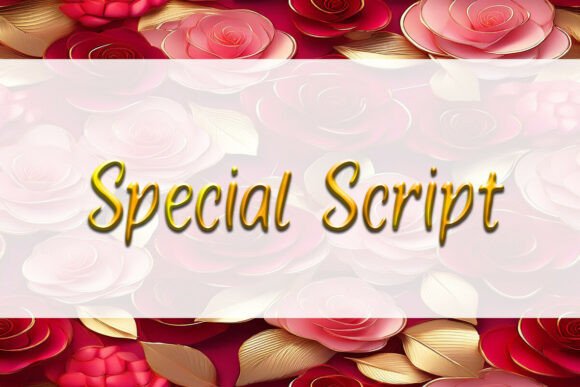
Why Special Script is the Creative Font Your Toolkit Needs
In the crowded world of modern typography, finding a typeface that balances personality with professionalism can be a challenge. Many display fonts lean too far into the chaotic "handwritten" style, sacrificing legibility for the sake of raw expression. Others feel sterile, removing the human element entirely. Special Script occupies that rare, valuable middle ground. It is an exceptional choice for designers and creators who need to inject elegance and authenticity into their work without losing the clarity required for commercial success.
At its core, Special Script is defined by its fluid curves and elegant strokes. It doesn’t just mimic handwriting; it elevates it. The letterforms flow into one another with a rhythm that feels organic yet controlled. This visual personality makes it an immediate standout. Unlike rigid block letters or overly technical sans-serif fonts, this typeface brings a warmth to the page that invites the viewer in. It feels personal, intimate, and distinctively human. Whether you are working on a high-end brand identity or a personal passion project, the visual appeal of this font lies in its ability to communicate emotion instantly.
Practical Applications: Beyond the Wedding Invite
When we think of script fonts, the mind often jumps to wedding invitations or overly decorative stationery. While Special Script certainly excels in those areas, its utility extends far beyond traditional stationery. It is a powerhouse for a variety of creative mediums, particularly in the realm of physical products and digital marketing.
For those involved in apparel design, Special Script is a game-changer. It is the most fitting choice for custom t-shirts because it maintains its structural integrity even when printed on fabric. The strokes are balanced perfectly—thick enough to screen print cleanly, but detailed enough to look high-end. If you are selling on platforms like Etsy or running a boutique clothing line, this font helps you avoid the generic look of standard "distressed" lettering.
Similarly, for the booming market of decals and stickers, this font shines. The fluid curves create beautiful silhouettes that are easy to weed and cut. It translates seamlessly into SVG files, which is critical for users operating Cricut or Silhouette machines. If you have ever struggled with a script font that has too many sharp, disconnected points that snag the vinyl, you will appreciate the smooth, continuous nature of Special Script.
It is also a standout for editorial design and print media. Imagine a magazine layout where the headlines need to pop with personality. Using Special Script for pull quotes or section headers can break up the monotony of body text, adding a layer of visual hierarchy that guides the reader’s eye. It works beautifully for packaging design as well, especially for artisanal goods where the brand story relies on a "handmade" aesthetic.
Strategic Typography: How Fonts Influence Perception
Choosing a font is never just about aesthetics; it is a strategic decision that influences how your audience perceives your brand. Typography plays a massive role in brand recognition and trust. When you use a premium font like Special Script, you are signaling quality. It suggests that you care about the details, which translates to a perception of professionalism.
For brand identity, consistency is key. Special Script provides a distinct voice that can become the "face" of your brand. It is particularly effective for businesses that want to appear approachable yet sophisticated—think boutique bakeries, lifestyle coaches, high-end salons, or creative agencies. The font acts as a visual handshake, establishing a mood before the customer has even read the first word of your copy.
However, as with any display font, readability is the primary concern. Special Script is designed to be legible at larger sizes, making it ideal for headlines, logos, and social media graphics. It commands attention on Instagram posts or Pinterest pins, where you have only a split second to catch a scrolling thumb. That said, it is not intended for long-form body text. A common mistake in web design and print is using a script font for paragraphs. This creates eye strain and destroys readability. Instead, pair it with a clean sans serif font or a sturdy serif font for your body copy. The contrast between the fluid script and the structured body text creates a sophisticated font pairing that balances flair with function.
Integrating Special Script into Your Workflow
For designers and entrepreneurs, efficiency is just as important as aesthetics. Integrating a new typeface into your workflow shouldn't slow you down. Special Script is designed as a versatile design asset that adapts to various software environments, from Adobe Illustrator to Procreate.
When evaluating if this font is the right fit for your current project, consider the tone of your message. If you are aiming for "corporate serious," a modern typography approach using a sans-serif might be better. But if you are aiming for "authentic," "creative," or "elegant," Special Script is likely the missing piece. It is a creative font that helps bridge the gap between digital perfection and human imperfection.
Here are a few practical tips for getting the most out of this typeface:
- Test the Pairings: Before finalizing a design, test Special Script against different background colors and secondary fonts. It often pairs best with geometric sans-serifs (like Montserrat or Futura) or classic serifs (like Garamond), depending on the era you want to evoke.
- Check the Licensing: Ensure you have the correct commercial font license. If you are using the font for a client logo, a t-shirt line, or digital downloads, verify that the license covers commercial use. This protects both you and your client.
- Utilize Alternates: High-quality script fonts often come with alternate characters or ligatures. Explore the glyph panel in your design software to swap out specific letters. This prevents repetitive loops and adds a truly custom, calligraphic feel to your work.
- Scale Appropriately: Always view the font at the size it will be printed or displayed. A script that looks gorgeous on a 27-inch monitor might lose detail on a small greeting card. Special Script is robust, but checking the scale ensures maximum impact.
Ultimately, Special Script is more than just a set of letters; it is a versatile tool for storytelling. Whether you are crafting heartfelt greeting cards, designing eye-catching posters, or building a cohesive brand identity, this font provides the elegance and personality needed to make your work memorable. It is a resource that belongs in every creative professional's arsenal, ready to transform a standard layout into something truly special.